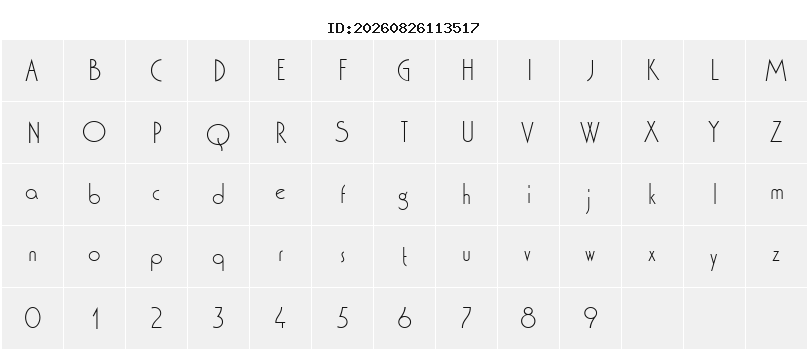
Washington Becker Light Preview
• Font Name: Washington Becker Light
About Washington Becker Light.ttf
Washington Becker Light.ttf is a modern, elegant sans-serif font designed for ultimate readability and visual harmony. Perfect for branding, headlines, web design, and print materials.